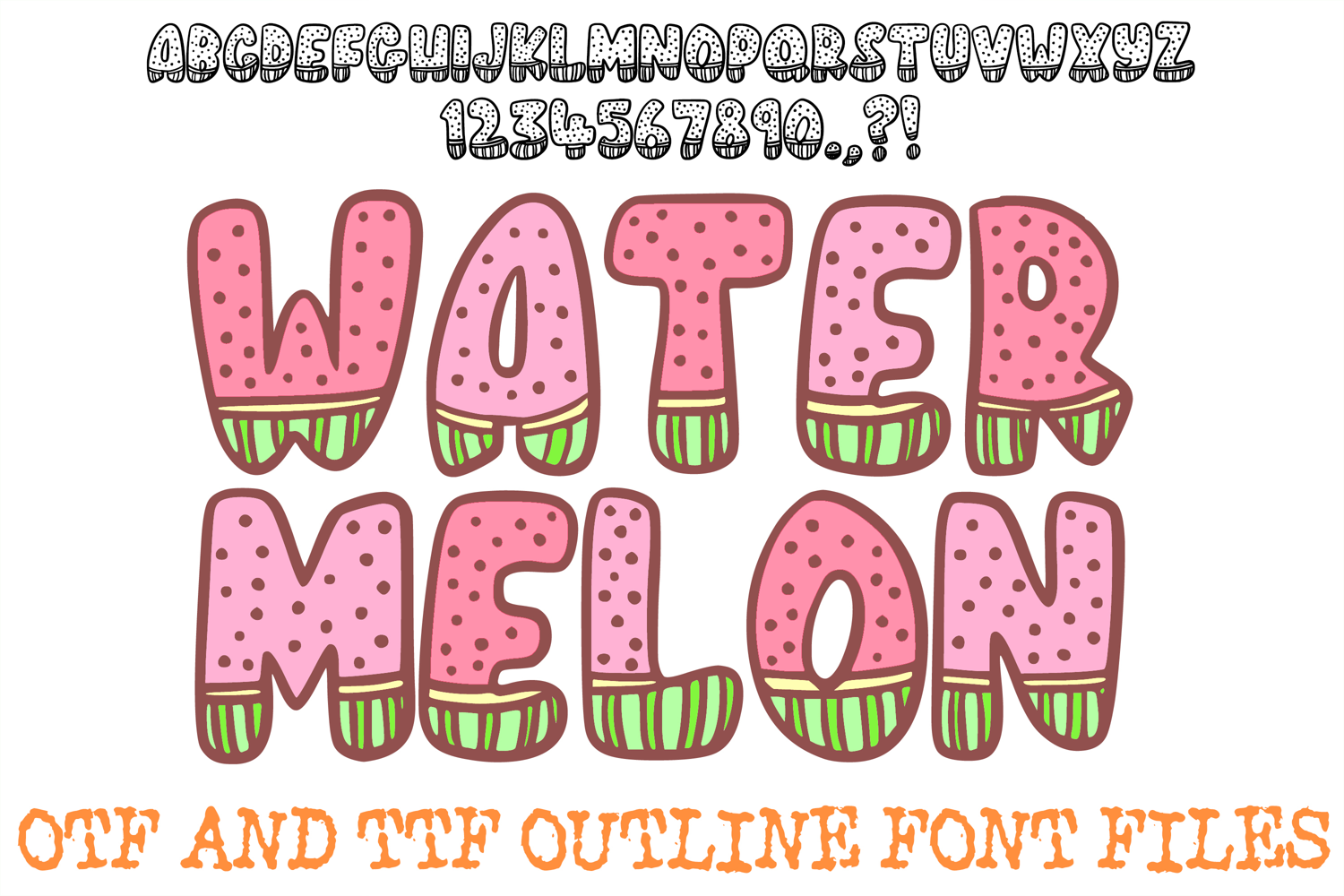
Watermelon ABC Font Typeface Fruit Melon Alphabet OTF
Add a sweet, refreshing pop of color to your projects with Watermelon, a fully installable display font designed to look like juicy fruit slices. Featuring chunky, hand-drawn letterforms dotted with seeds and finished with green striped rinds, this typeface brings a fun and playful summer vibe to every project.
Ideal For:
Summer & Party Crafts: Picnic invitations, pool party banners, tropical event decor, and BBQ signage.
Apparel & Merch: Fruit-themed t-shirts, children's clothing, tote bags, and summer accessories.
Playful & Kids' Design: Nursery decor, school projects, children's book headers, and sticker sheets.
Vinyl & Cutting Projects: Craft machine creations, custom decals, print-on-demand layouts, and cute stationery.